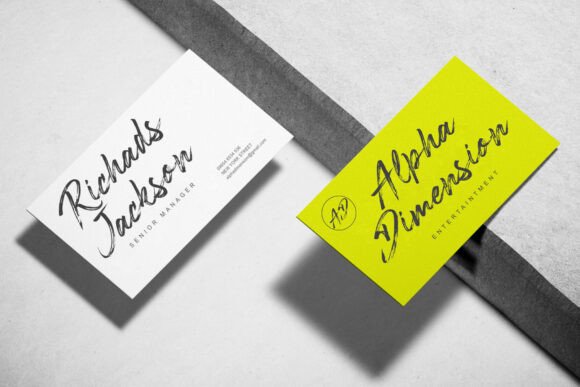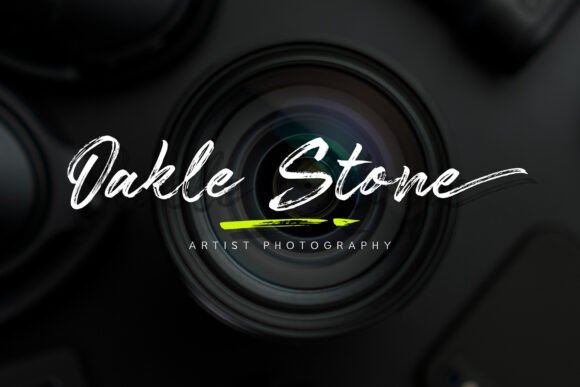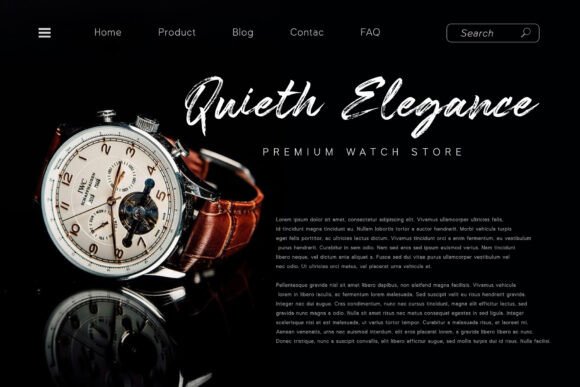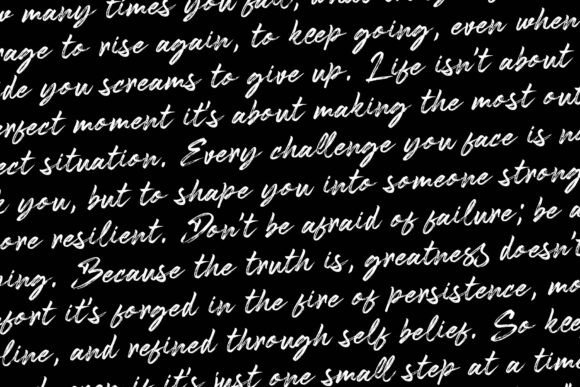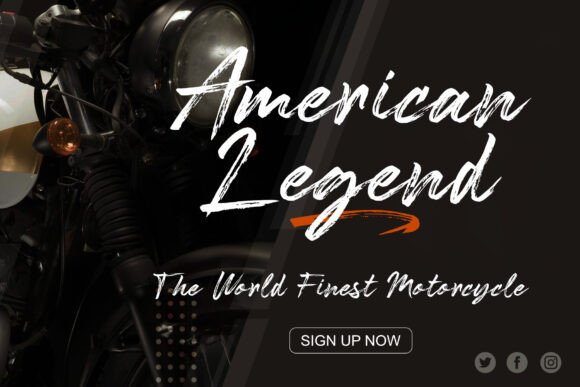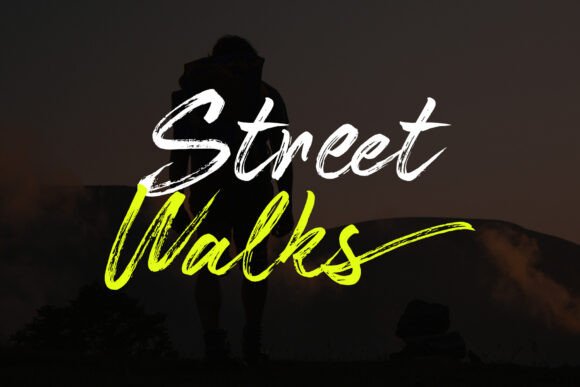
Bableya Font: Elevate Your Design Projects with a Stylish Modern Brush Font
In the world of design, typography plays a crucial role in conveying the tone and personality of a brand or project. A well-chosen font can make all the difference in creating a lasting impression on your audience. If you’re looking for a font that exudes friendliness, charm, and a touch of elegance, look no further than Bableya Font. In this article, we’ll dive into the world of Bableya, exploring its features, uses, and benefits for designers and crafters.
What is Bableya Font?
Bableya is a stylish modern brush font that boasts charming details and a unique character. Its brush strokes bring a friendly and engaging feel, making it an excellent choice for designers and crafters looking to add a personal touch to their projects. Whether you’re working on branding, logos, wedding invitations, social media content, advertising, product packaging, or any other design project, Bableya is the perfect companion.
Key Features of Bableya Font
- Stylish Modern Brush Font: Bableya’s modern brush font style gives it a fresh and contemporary look that’s perfect for designs that require a touch of sophistication.
- Charming Details: The font’s charming details add a layer of personality to your designs, making them more relatable and engaging.
- Brush Strokes: Bableya’s brush strokes are carefully crafted to bring a friendly and approachable feel to your designs.
- Handwritten Touch: The font’s handwritten touch makes it perfect for projects that require a personal and humanizing element.
Uses of Bableya Font
Bableya’s versatility makes it an excellent choice for a wide range of design projects, including:
- Branding: Use Bableya to create a unique and memorable brand identity that stands out from the crowd.
- Logos: The font’s stylish and modern design makes it perfect for creating logos that are both elegant and effective.
- Wedding Invitations: Add a touch of romance and whimsy to your wedding invitations with Bableya’s charming details.
- Social Media Content: Use Bableya to create engaging social media content that resonates with your audience.
- Advertising: The font’s friendly and approachable feel makes it an excellent choice for advertising campaigns that aim to connect with customers on a personal level.
- Product Packaging: Bableya is perfect for product packaging designs that require a touch of elegance and sophistication.
- Product Design: Use Bableya to create product designs that are both functional and visually appealing.
- Labels: The font’s clear and readable design makes it perfect for labels that require a touch of personality.
- Photography: Use Bableya to add a touch of elegance to your photography watermark or signature.
- Watermarks: The font’s subtle and sophisticated design makes it perfect for watermarks that require a touch of class.
- Stationery: Bableya is perfect for creating stationery designs that are both functional and visually appealing.
Benefits of Using Bableya Font
So, why choose Bableya Font for your design projects? Here are just a few benefits of using this stylish modern brush font:
- Unique and Memorable: Bableya’s unique design makes it an excellent choice for designers and crafters looking to create memorable and lasting impressions.
- Versatile: The font’s versatility makes it perfect for a wide range of design projects, from branding and logos to wedding invitations and social media content.
- Easy to Read: Bableya’s clear and readable design makes it perfect for designs that require a touch of elegance and sophistication.
- Time-Saving: The font’s pre-designed characters and glyphs save you time and effort, allowing you to focus on the creative aspects of your project.
| Font Name | Bableya Font |
In conclusion, Bableya Font is a stylish modern brush font that offers a unique and charming touch to your design projects. Its versatility, readability, and elegance make it an excellent choice for designers and crafters looking to elevate their designs. Whether you’re working on branding, logos, wedding invitations, or social media content, Bableya is the perfect companion. So why wait? Download Bableya Font today and take your designs to the next level!